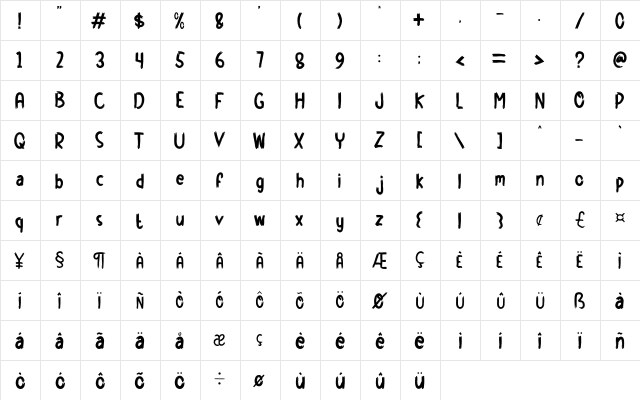
Halloween Day Regular
Design Context for Halloween Day Typeface
Halloween Day is a composed and adaptable typeface that performs quietly and consistently across a wide range of design contexts.